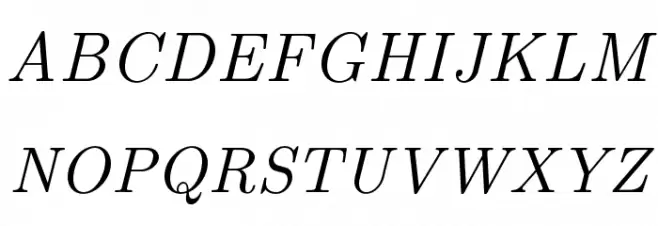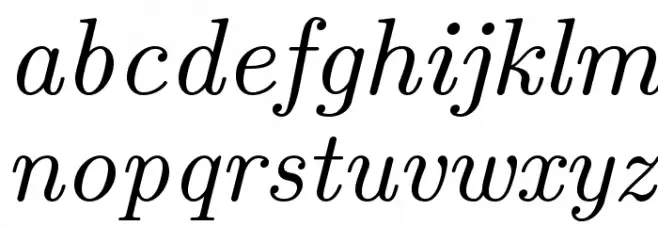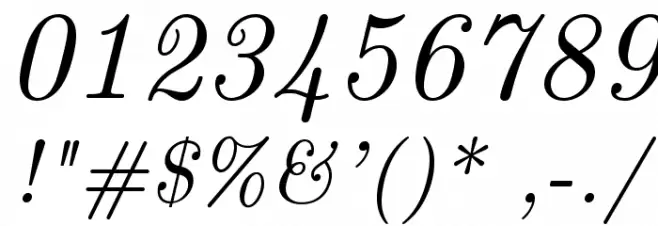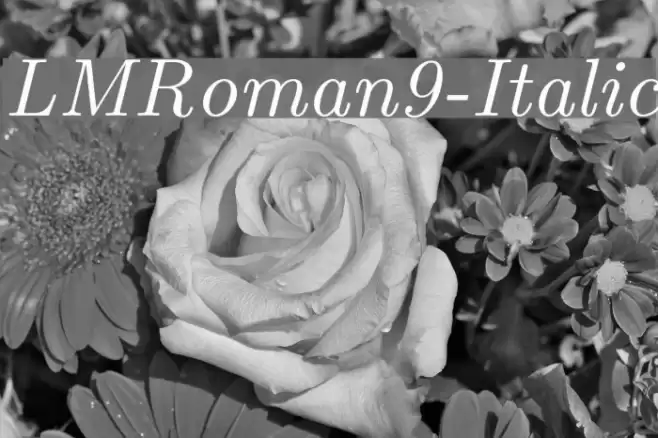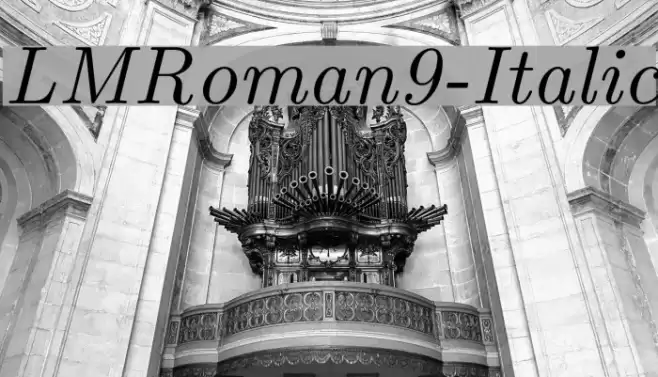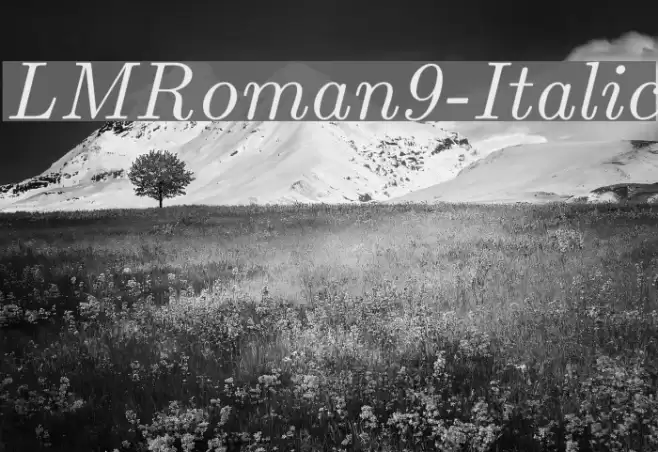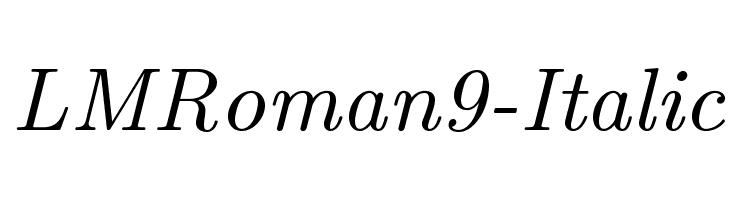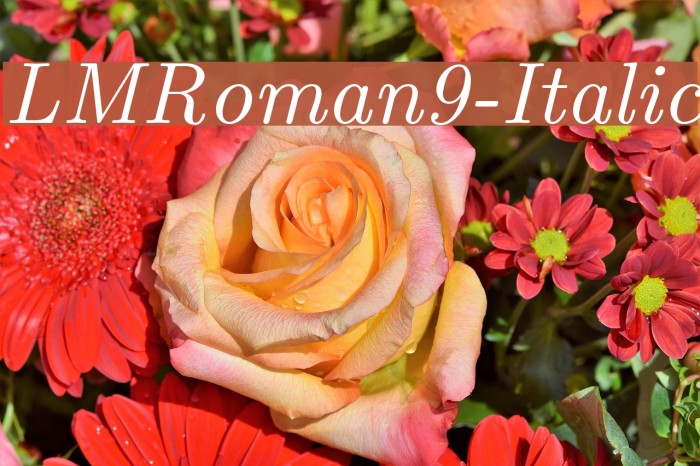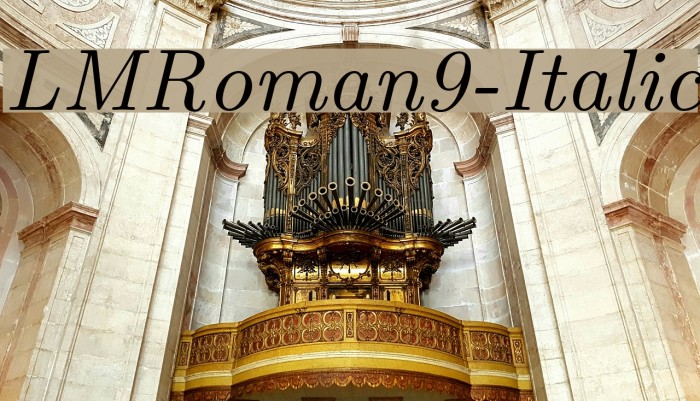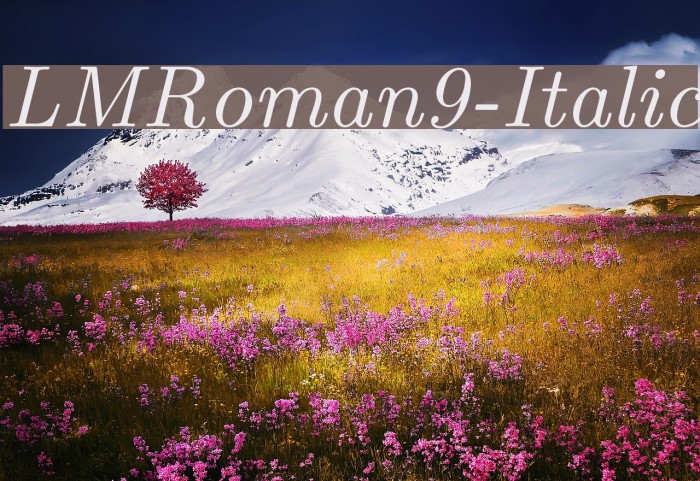
LMRoman9-Italic
This elegant typeface features a classic italic style with a refined and sophisticated appearance. The letters are gracefully slanted, offering a sense of motion and fluidity. Each character is meticulously crafted with delicate serifs and smooth curves, providing a harmonious balance between formality and readability. The uppercase letters maintain a traditional structure, while the lowercase letters exhibit a gentle flow, enhancing the overall aesthetic. The numerals are consistent with the font's elegant style, and the special characters are thoughtfully designed to complement the alphabet. This font is ideal for projects that require a touch of elegance and sophistication.
An elegant italic serif font with refined curves and classic style.
- Proposed Projects: Ideal for wedding invitations, formal documents, elegant branding, and sophisticated editorial design.
- Category: Serif
- Overall Style: Classic